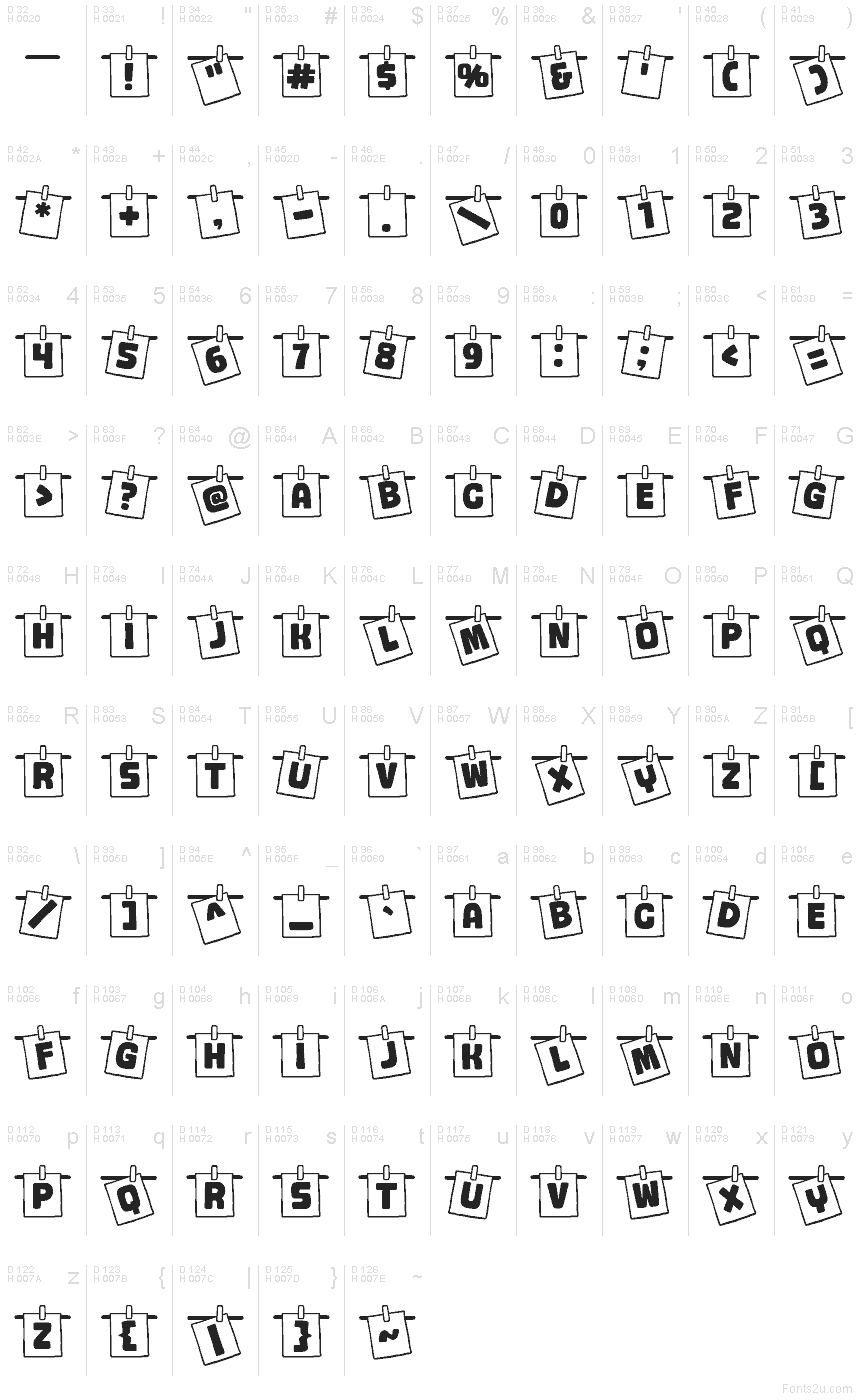
Notedry
Notedry font designed by Khurasan is an eccentric typeface which proves that business and pleasure can actually meet. And whether you call the seemingly suspended letters playful or whimsical, these bold font characters have a vintage touch to them with stylish over-the-top curves and elements that look like eyes in disguise for a decorative final display!
The specific style of this free display font can actually be quite useful, one which would best suit logotypes, headlines, headings on posters and magazine covers or photo captions. Ideal use for stationery items too especially the general greeting cards, business cards but more specifically creative writing notebooks.